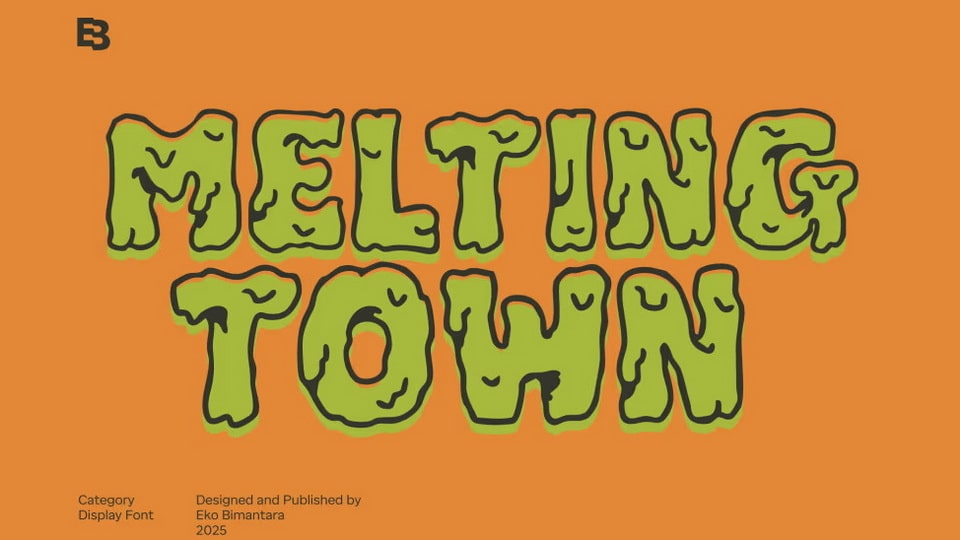
Download Melting Town font, a quirky, playful display typeface that captures the whimsical charm of melting ice cream or gooey candy with its wavy, organic letterforms and dripping edges.